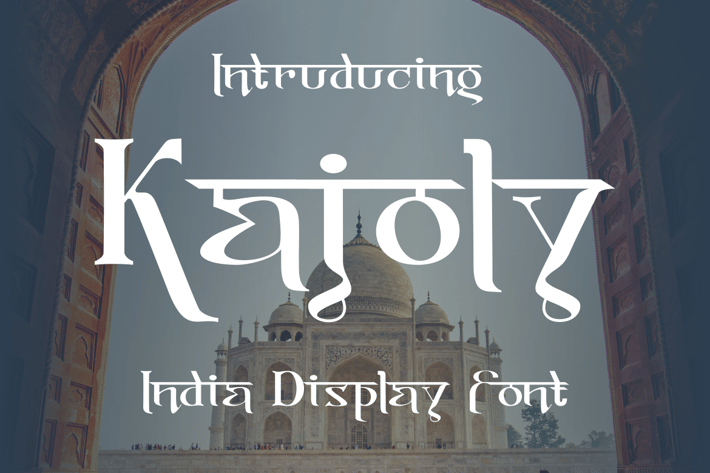
Kajoly - Hindi Display Font
Proudly present our new product Kajoly - Hindi Display Font
is a modern and authentic font. Perfect for professional needs and product branding, this font is suitable for any branding project such as quotes, logos, blog headers, posters, ribbons, letters, invitations, stationery, etc... Designed to be versatile and flexible that can be used on a variety of projects and media. extraordinary in a variety of contexts.